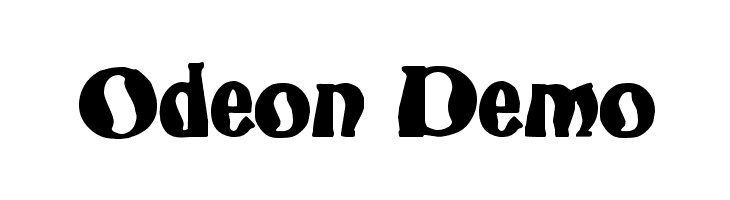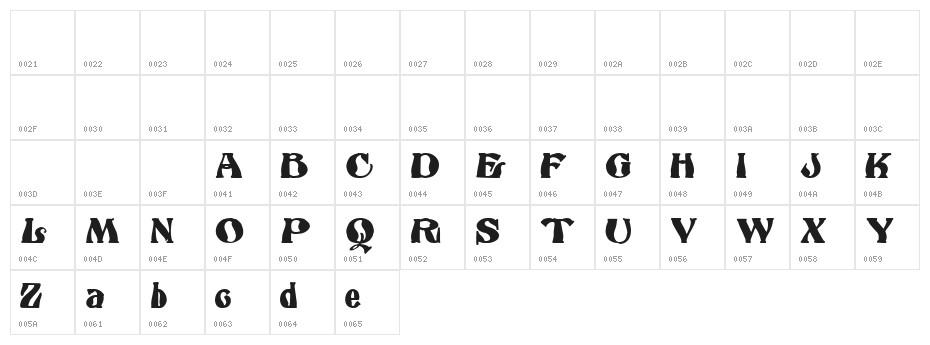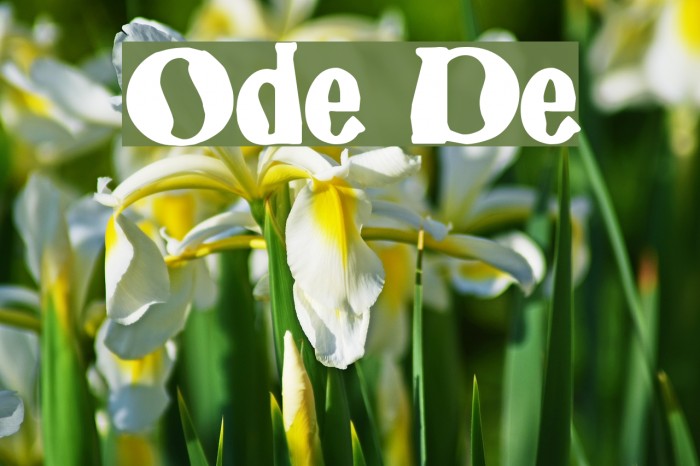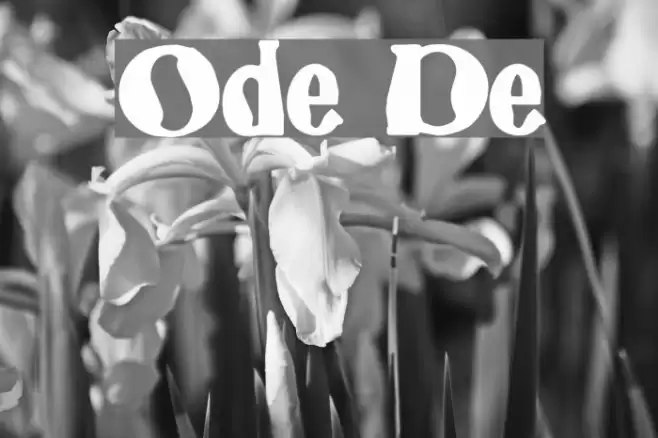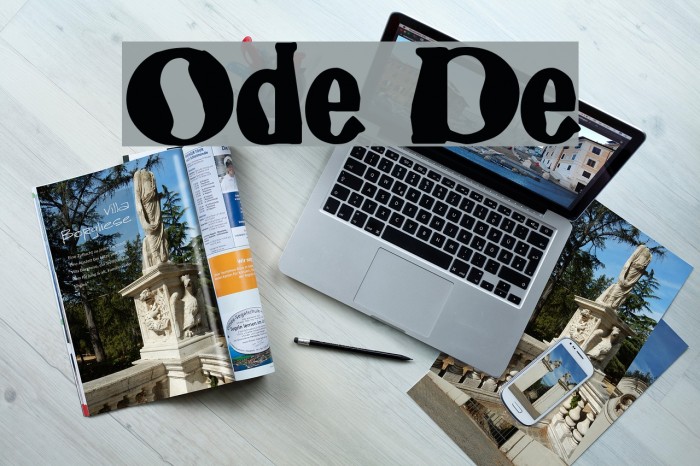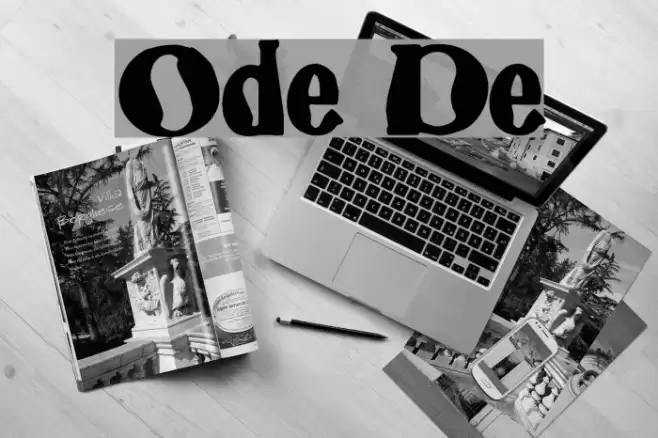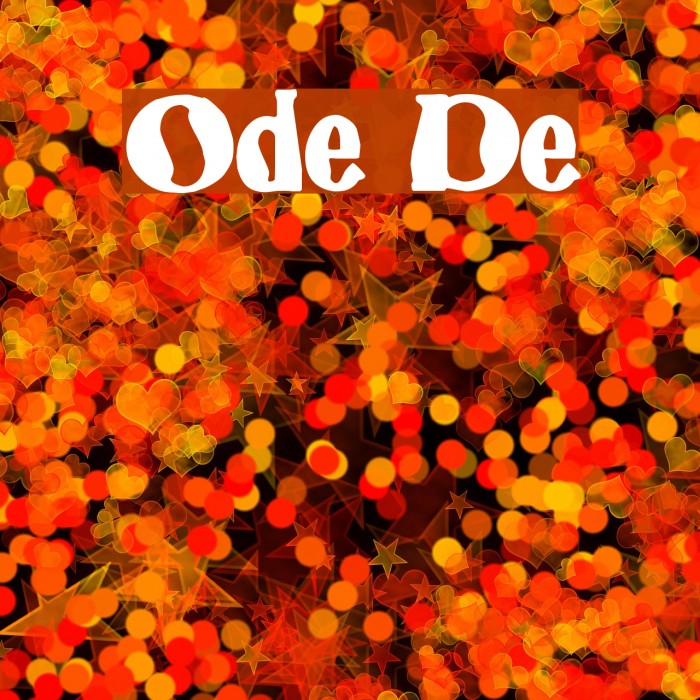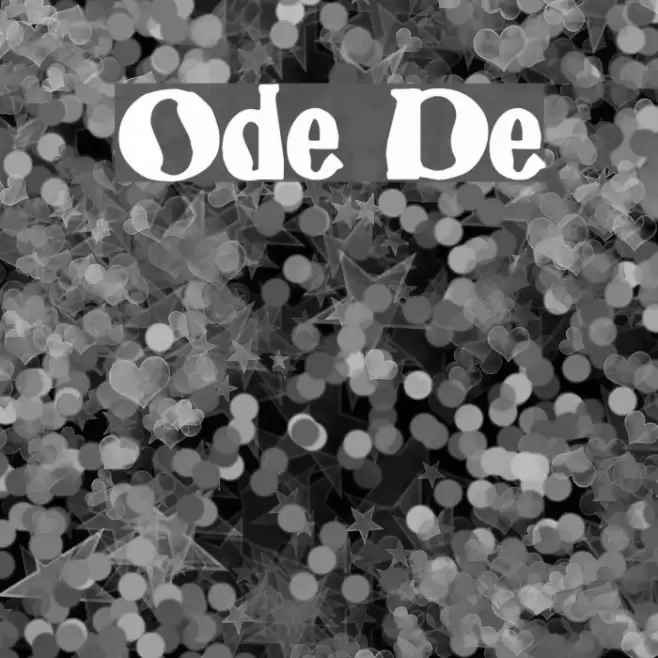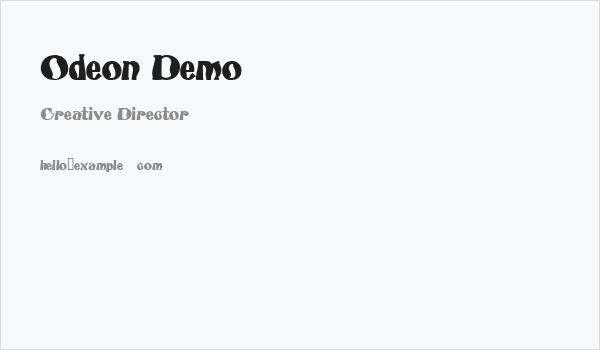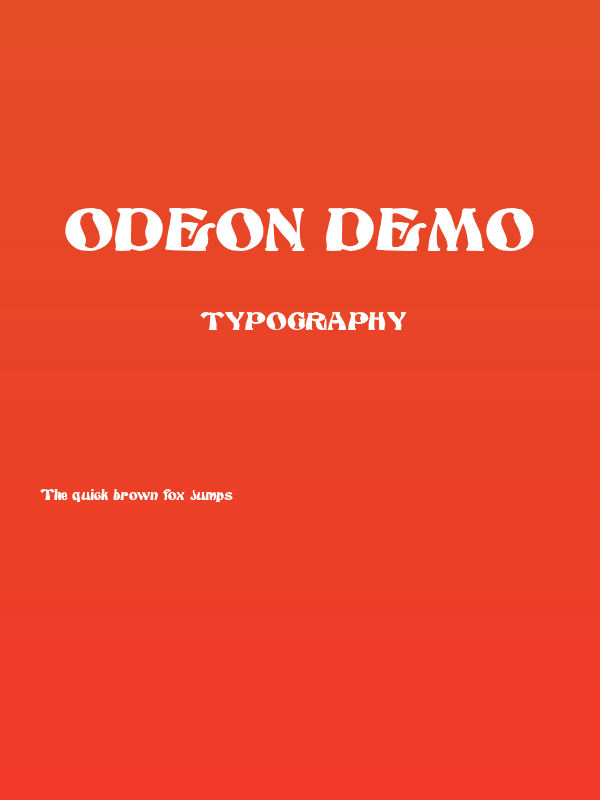
Odeon Demo Font
Odeon Demo Description
This font features a bold and dramatic style with a unique, artistic flair. The characters are heavily stylized, with thick strokes and varying widths that create a sense of movement and energy. The uppercase letters are particularly distinctive, with some incorporating unexpected curves and angles that add to the font's dynamic appearance. The lowercase letters maintain this artistic approach, ensuring consistency throughout the typeface. The overall design is reminiscent of vintage or theatrical posters, making it ideal for projects that require a touch of drama and creativity.
| Overall Style | Vintage, Decorative |
| Proposed Projects | Ideal for theatrical posters, vintage-themed designs, creative branding, and artistic displays. |